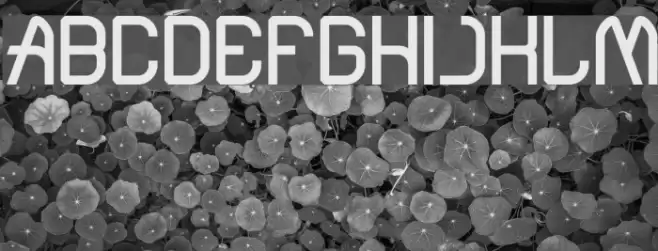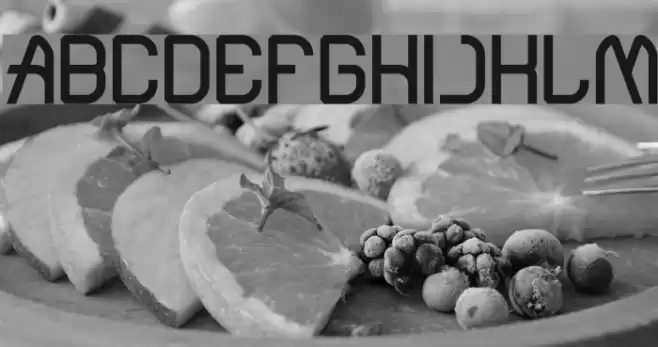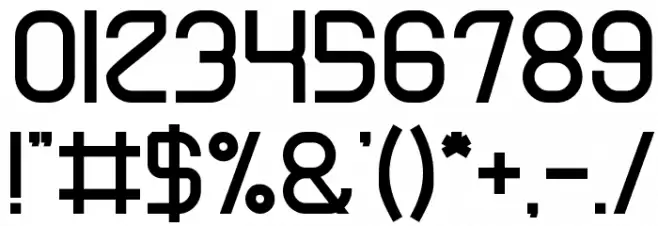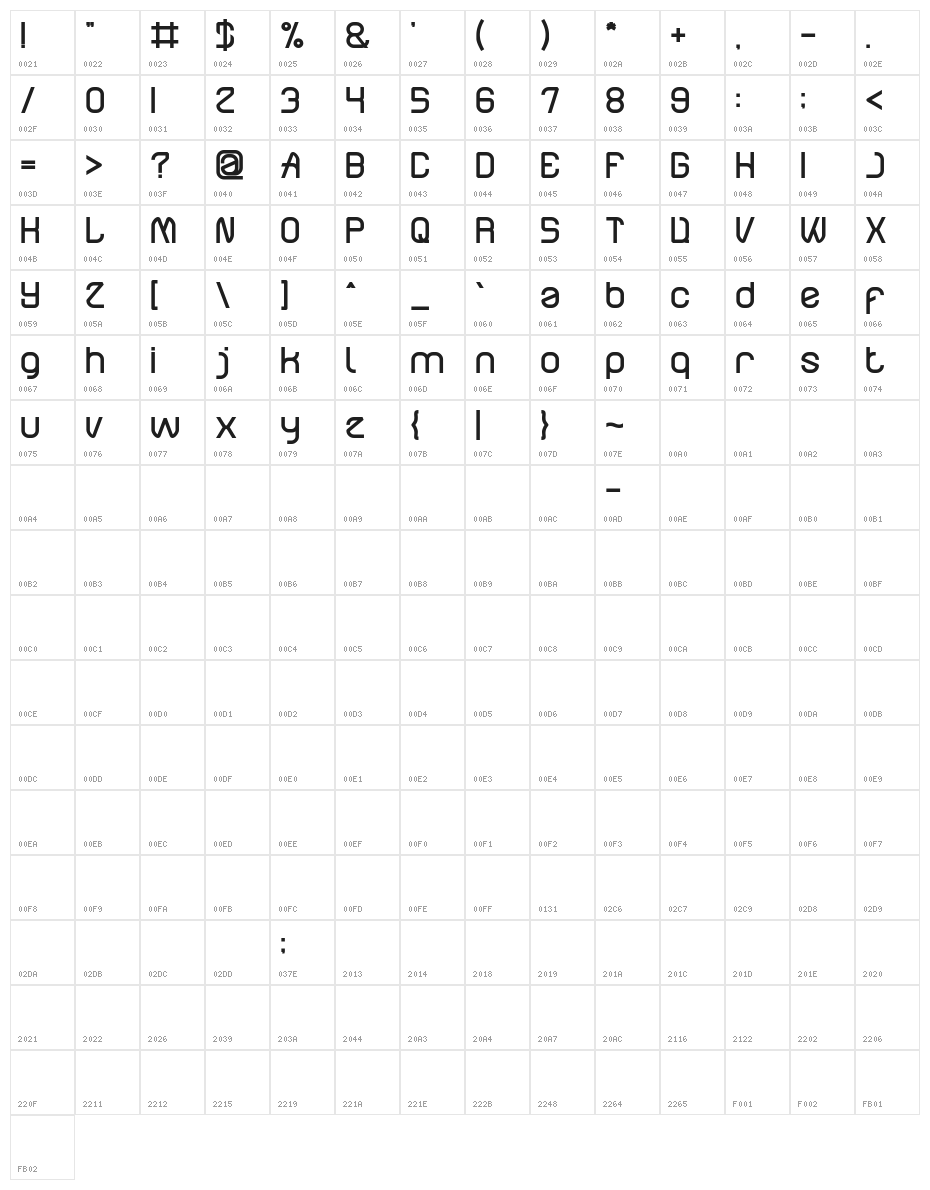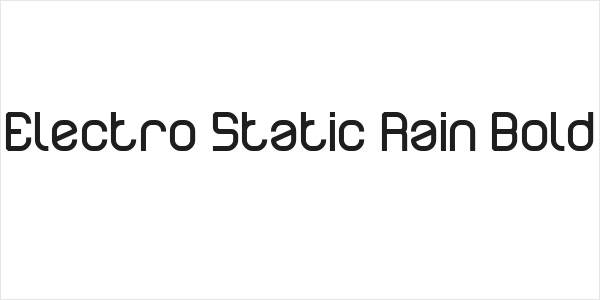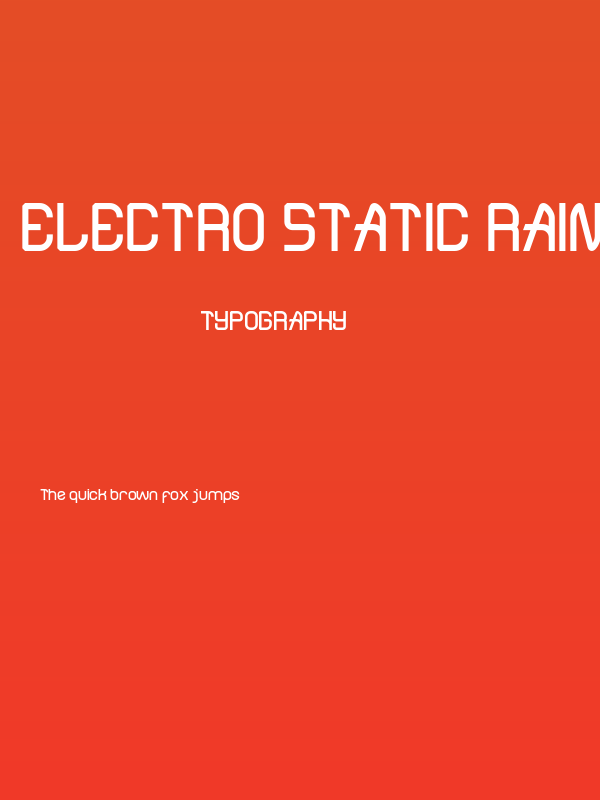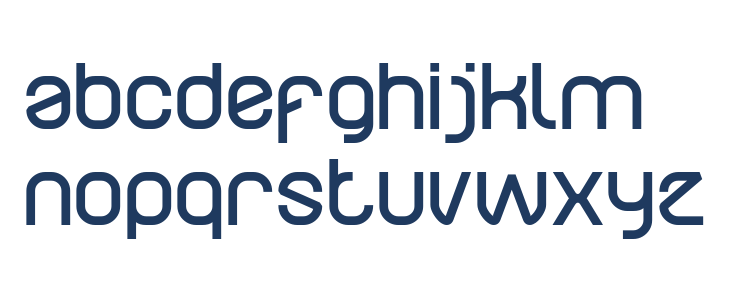
Electro Static Rain Bold Font
Electro Static Rain Bold Description
This font features a modern, geometric design with a bold and structured appearance. The characters are uniform in width, providing a monospaced feel, yet they maintain a unique style with rounded edges and a slight futuristic touch. The uppercase letters are distinct with a consistent height, while the lowercase letters offer a smooth transition with a similar geometric structure. The numerals are clear and easy to read, matching the overall boldness of the font. Special characters are well-integrated, maintaining the font's cohesive look. This font is ideal for projects that require a contemporary and tech-savvy aesthetic.
A bold, geometric font with a modern and futuristic design from Uncategorized fonts.
- Proposed Projects: Ideal for tech branding, digital interfaces, modern posters, and futuristic designs.
- Use Case: Headlines, Logos, Digital interfaces